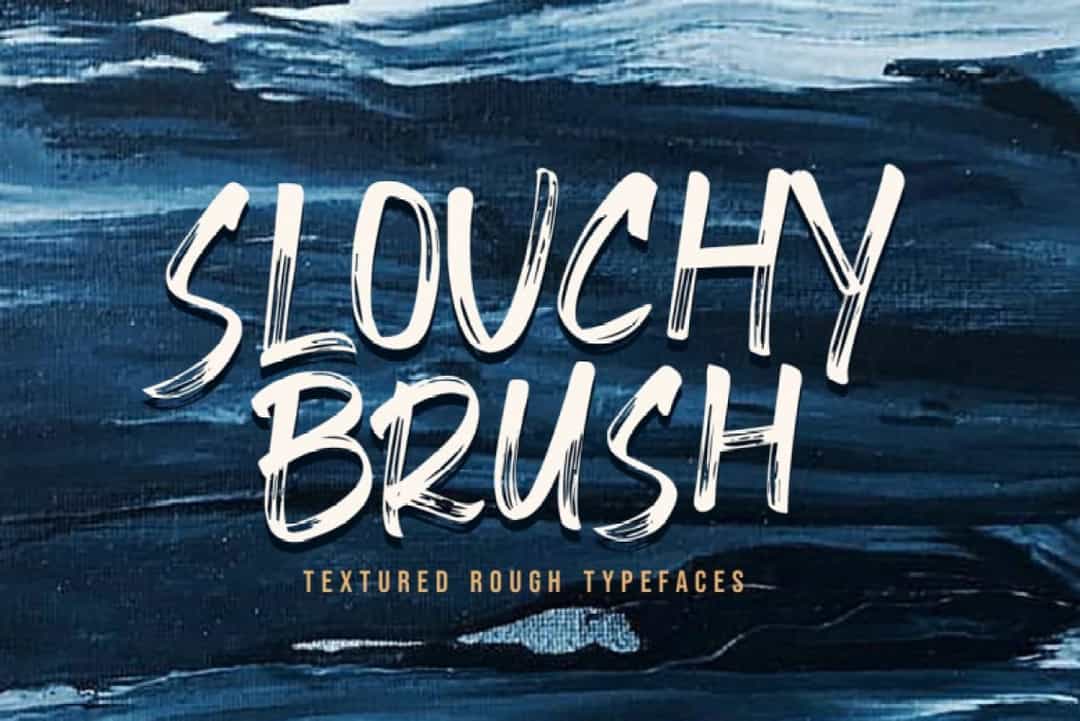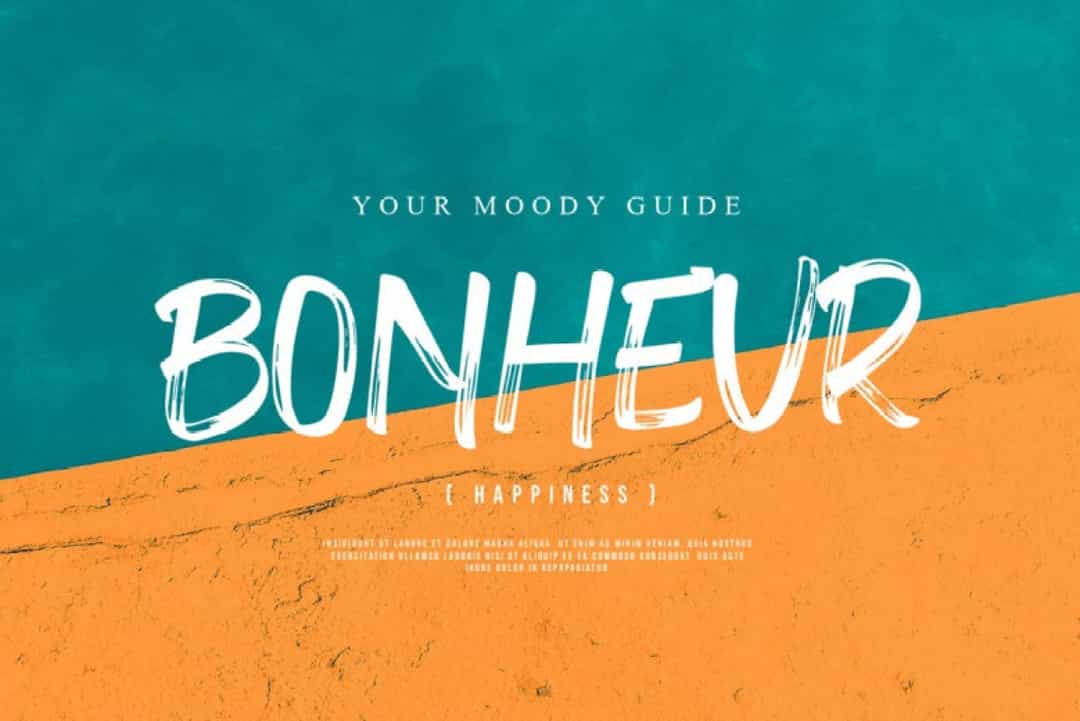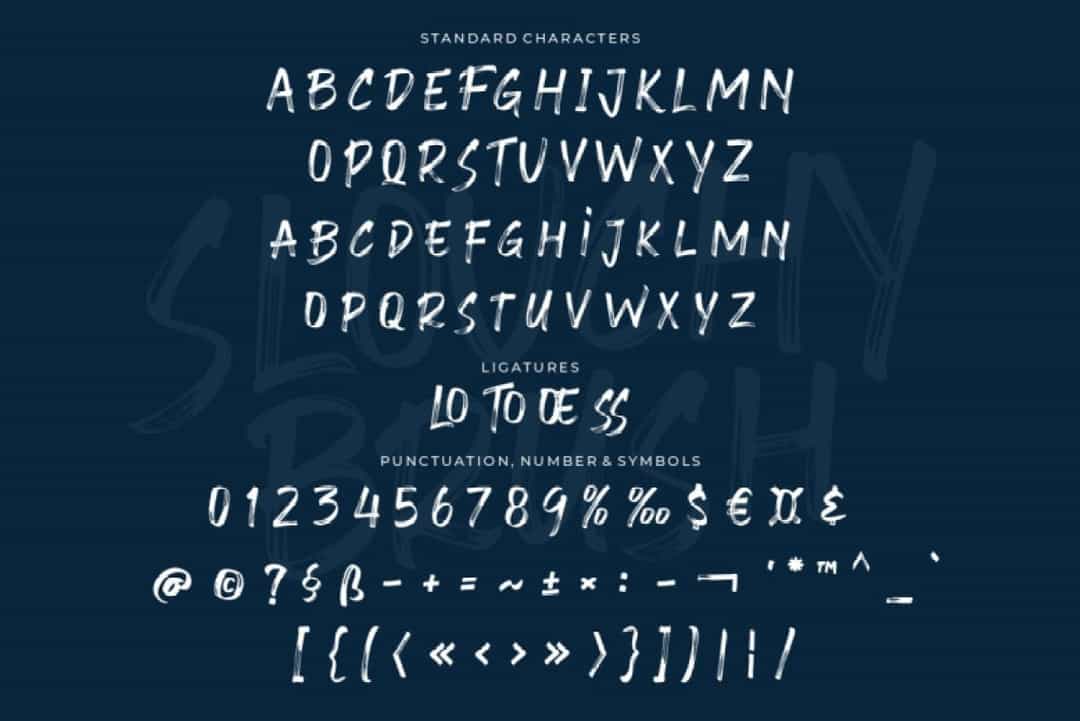
Slouchy Brush is a new rough typeface that you will love to use! Canned, simple and aggressive fonts, and they have a beautiful handwritten look. Created using handwritten strokes. Slouchy Brush font is perfect for advertisement branding, logo design product packaging quotes or for text overlay on any background for a bold look.